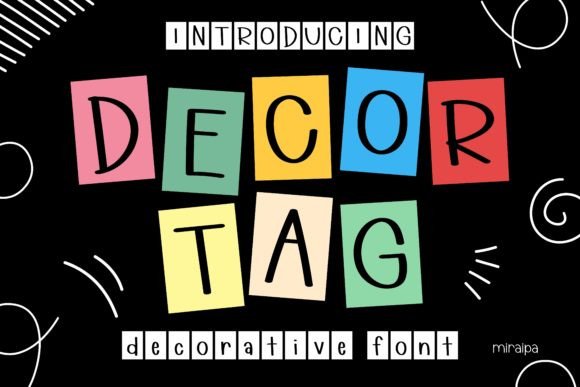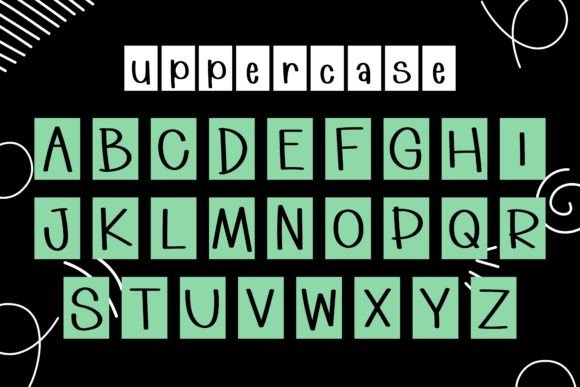
Decor Tag Font Font
Decor Tag is a fun and friendly decorative font. Whether you’re using it for crafts, digital design, presentations, or making greeting cards, this font has the potential to become your favorite go-to font, no matter the occasion!